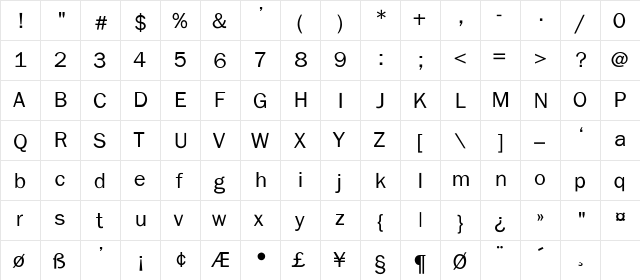
FranklinGothlte Regular
Design Context for FranklinGothlte Typeface
FranklinGothlte offers clean, dependable letterforms without strong stylistic allegiance, making it a practical choice for designers who need flexibility.